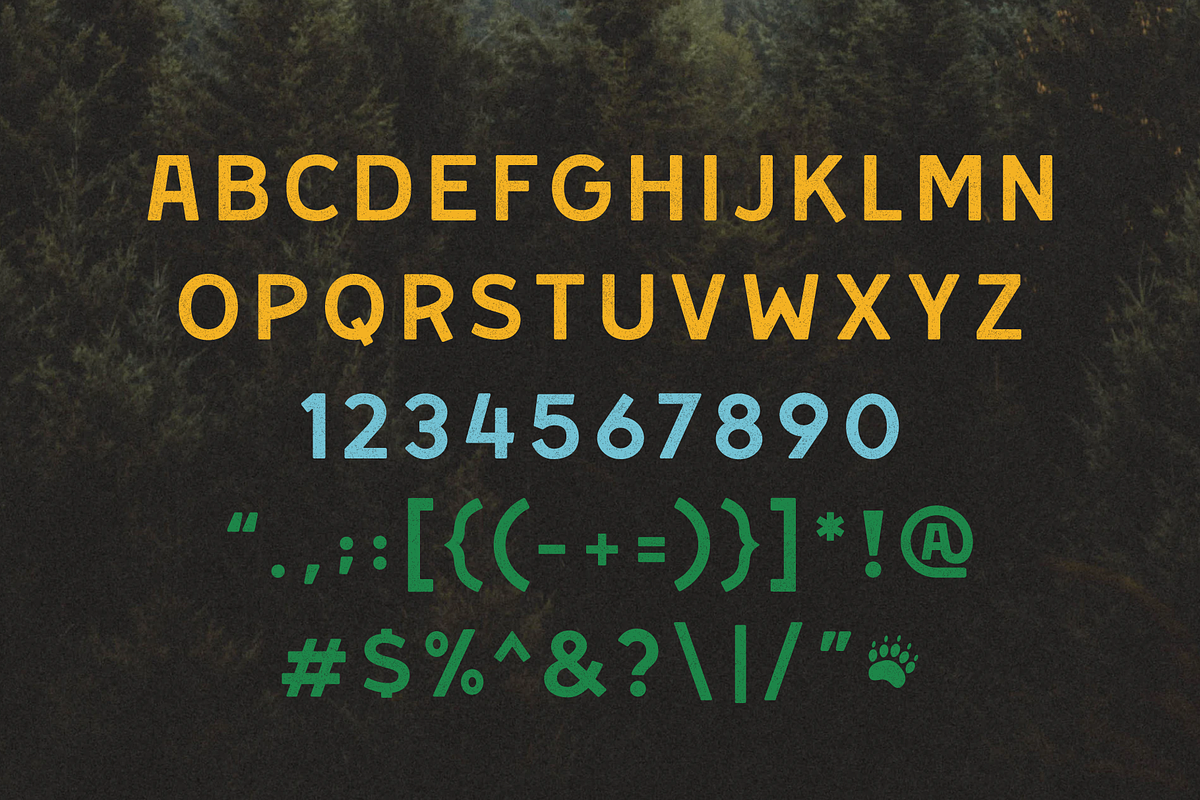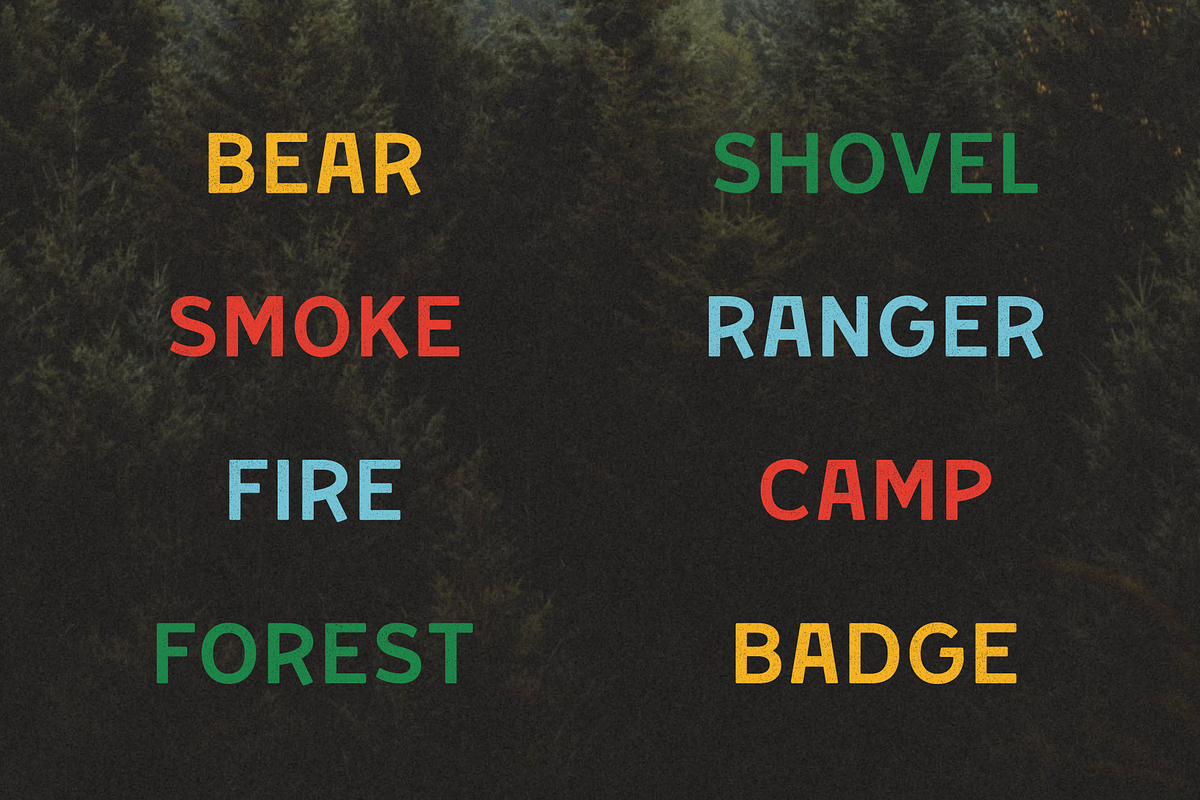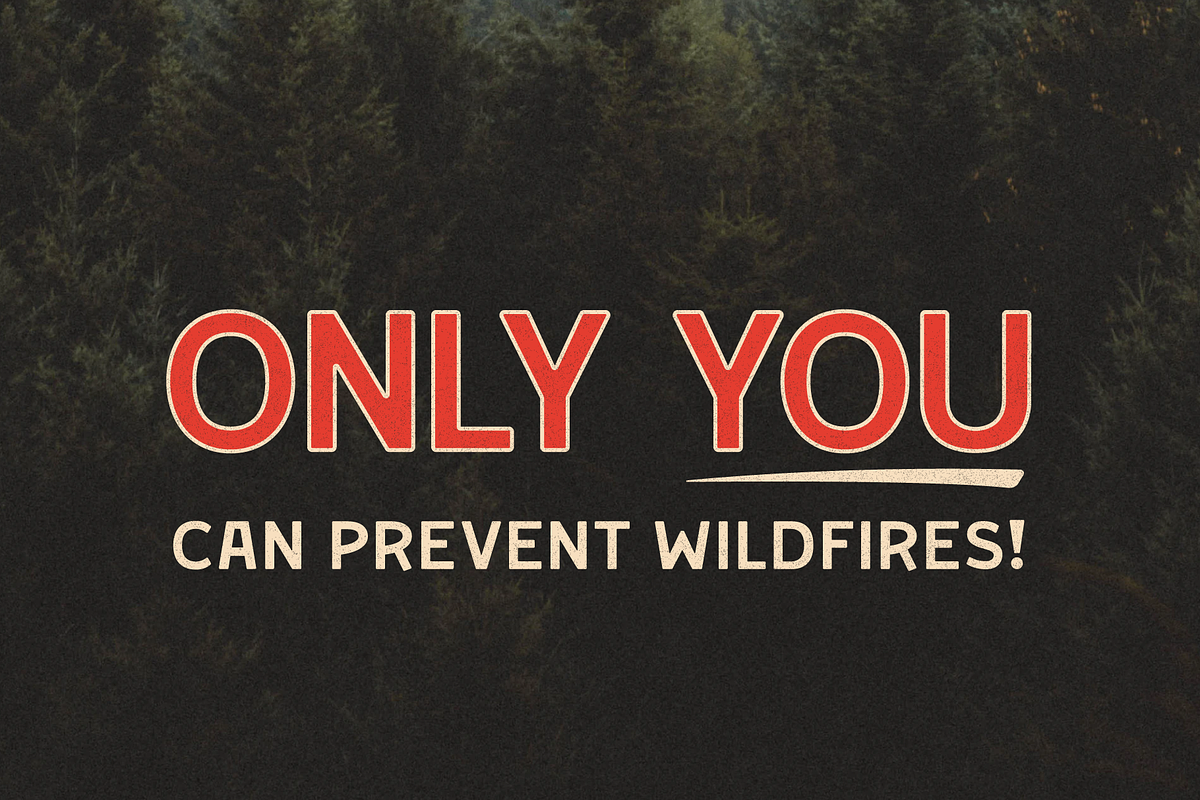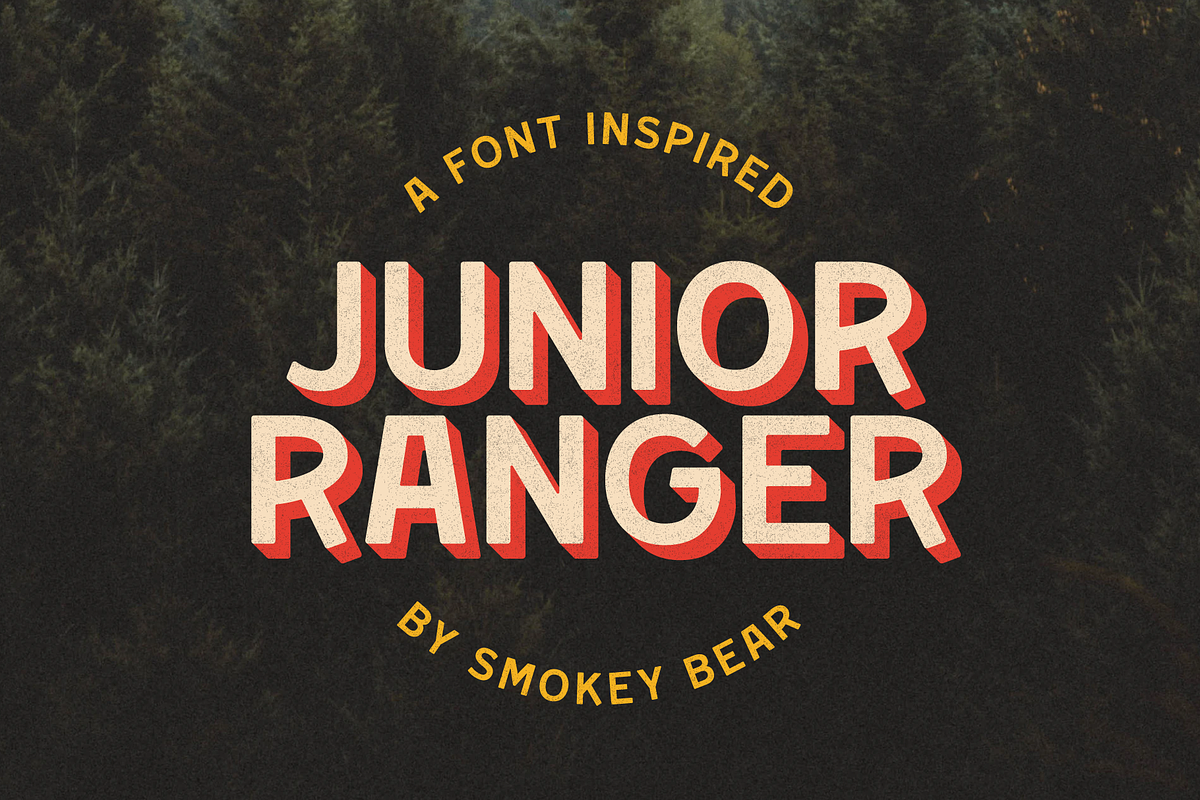
Junior Ranger
JUNIOR RANGER is a fun, and quirky, sans-serif (uppercase) display font inspired by vintage Smokey Bear campaign pieces from the 50's & 60's. We developed for use in our 2019 Smokey Bear brand case study and thought it was too much fun not to share. During our project we dug through hundreds and hundreds of documents, ads, mailers, posters, buttons, pins and more to develop a font that felt organic to the campaigns history while also helping it to be less stiff and more friendly and open. The font has fun characteristics in each letter that evoke a sense of vintage sign painters letters, as well as classic typefaces like Futura and Avenir. We hope you enjoy it as much as we do! ____ This font, and the Wild Giant Studio brand case study, are not affiliated or related to the AdCouncil or Smokey Bear campaign in any way. All use of the name are for reference only.